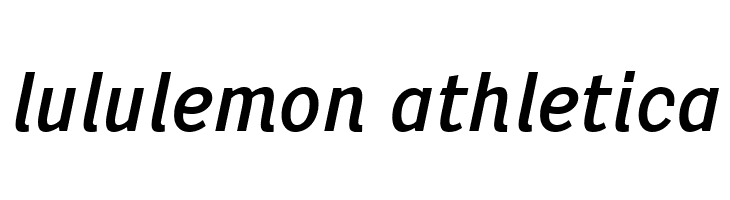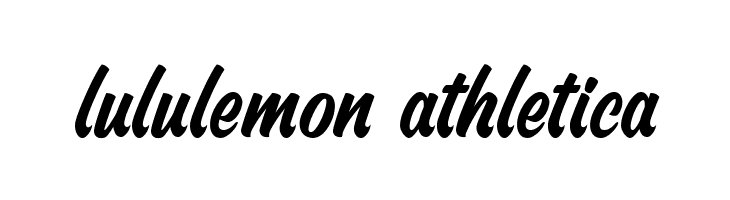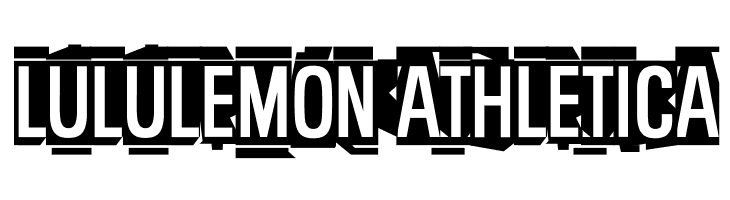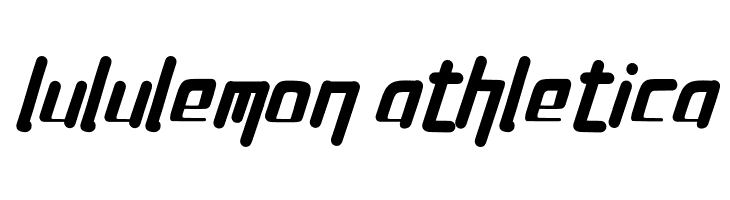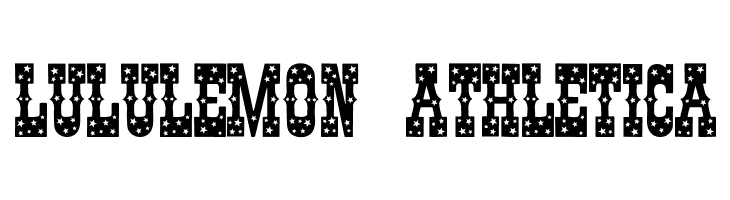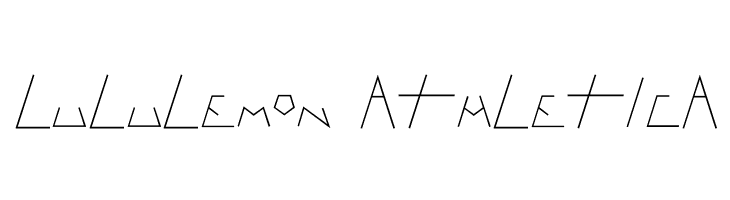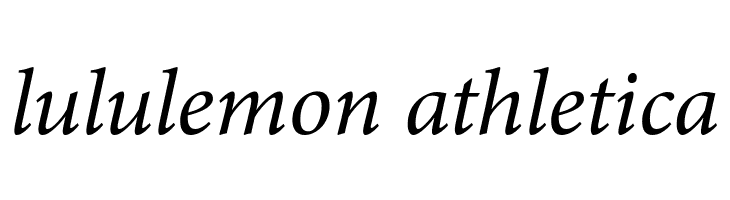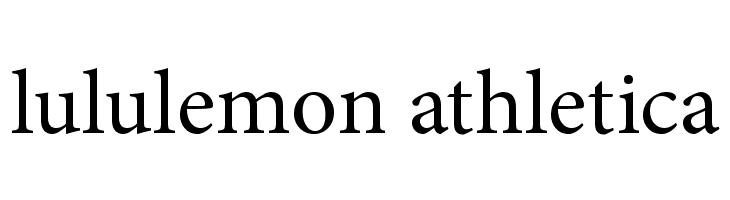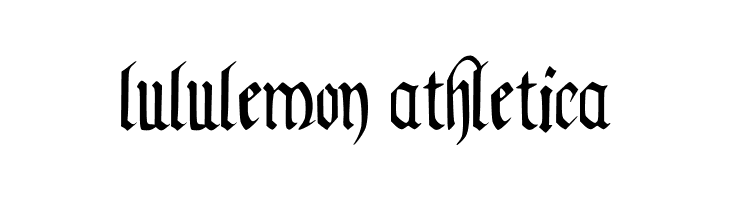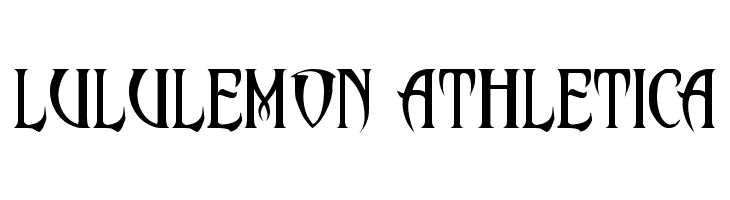
A bold, textured font with hand-drawn pen stroke aesthetics.
A bold, modern font with strong, thick strokes and a geometric design.
A bold, star-patterned decorative font ideal for eye-catching designs.
A bold, modern italic font with dynamic and energetic strokes.
A bold, italic font with a dynamic and modern style.
A bold, distressed font with a grunge aesthetic and textured appearance.
A bold, calligraphic font with a medieval, handcrafted style.
A bold, medieval-inspired font with angular edges and intricate curves.
A gothic, medieval-style font with intricate, angular strokes and ornate detailing.
An artistic, angular font with a gothic flair, perfect for dramatic designs.
A mystical, angular font with geometric and rune-like elements.
A bold, artistic font with sharp, angular lines and a gothic flair.
A bold, dynamic script font with a strong, energetic presence.
A geometric, angular font with a modern, edgy style.
A sophisticated cursive font with elegant, flowing lines.
A modern, italic sans-serif font with clean lines and excellent readability.
A modern, light sans-serif font with excellent readability and uniform design.
A modern, light, italic sans-serif font with smooth strokes and normal spacing.